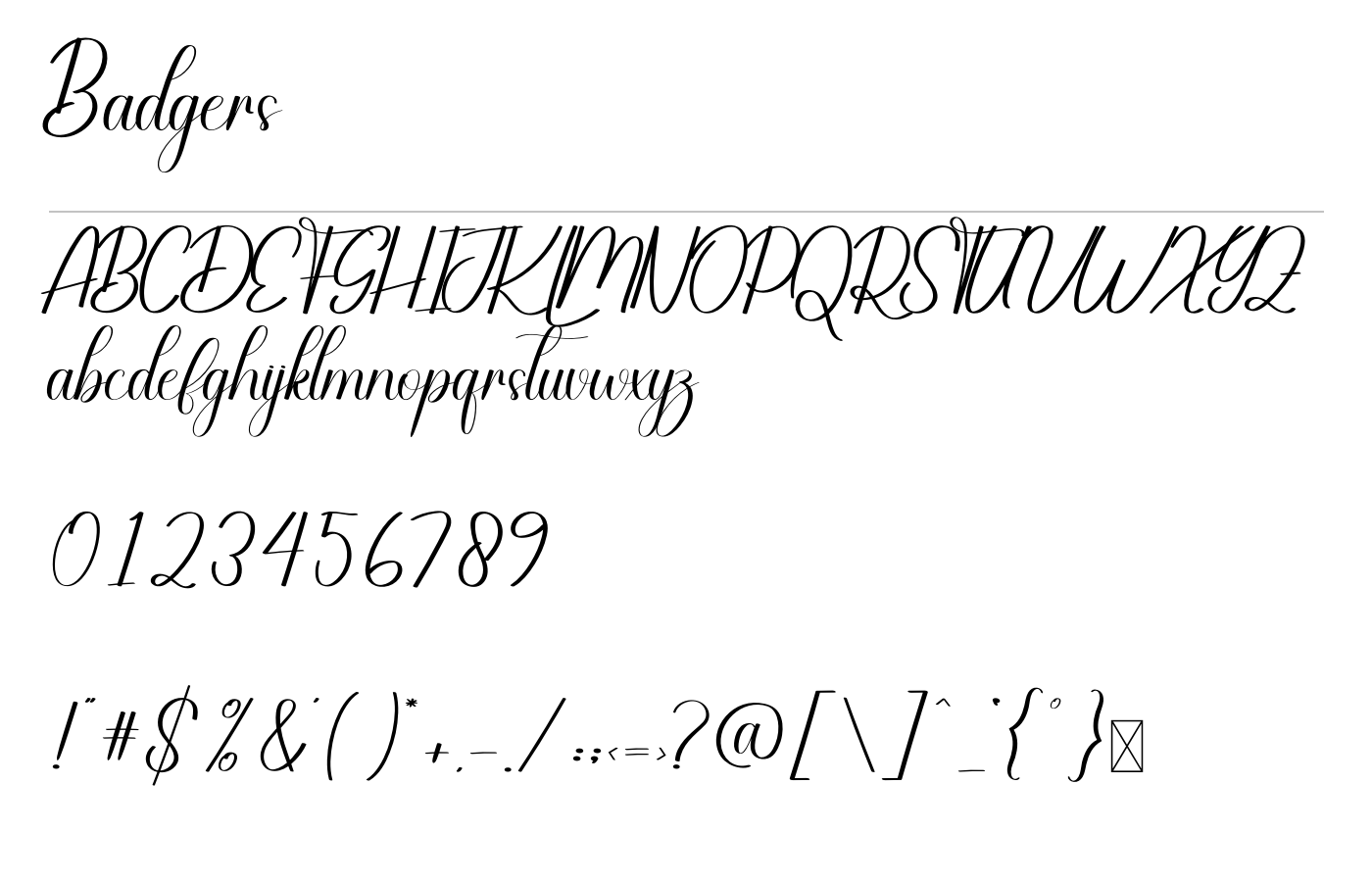
Badgers is an elegant, lightweight script font with a delicate, flowing style that mimics sophisticated handwriting. Its tall, narrow letterforms with fine strokes and graceful curves make it perfect for luxury branding, invitations, and editorial designs where a refined, stylish impression is desired. This font works beautifully in contexts that call for an artistic and personal touch, bringing a sense of charm and sophistication.
Badgers Font
About Badgers Font